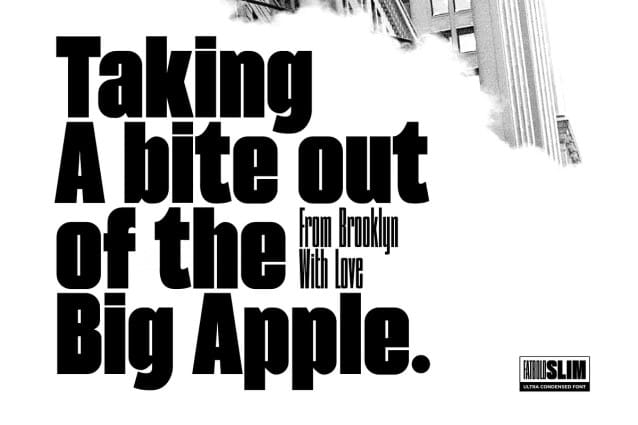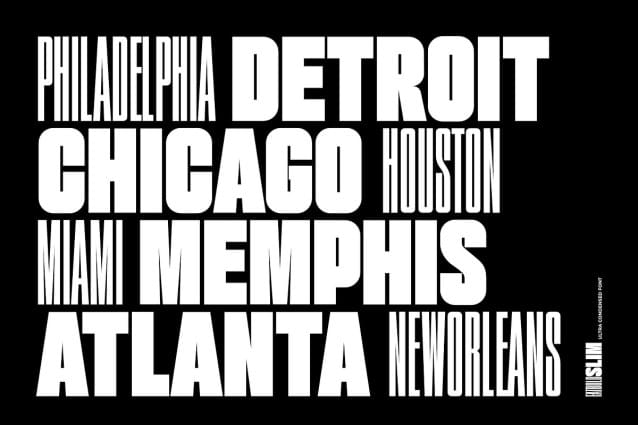
Fatbold Slim Font
Fatbold Slim Font – Ultra Condensed Font, created by ikiiko. A powerful, ultra-condensed typeface meant to make a big impression is called Fatbold Slim. This typeface has a contemporary, urban feel to it with its thick, strong letterforms crammed into a little vertical space. Fatbold Slim is perfect for attention-grabbing headlines, posters, and branding materials because of its striking and readable appearance.
Strong lines and a consistent weight guarantee that the typeface is readable even at smaller sizes, making it suitable for a wide range of design applications. Fatbold Slim has a strong visual presence that improves the entire message whether it is utilized in print or digital media.
This font is very suitable for making a headline, poster design, movie title, book cover, magazine layout, quotes, or simply as a stylish text overlay to any background image that creating striking titles and headings that demand attention.